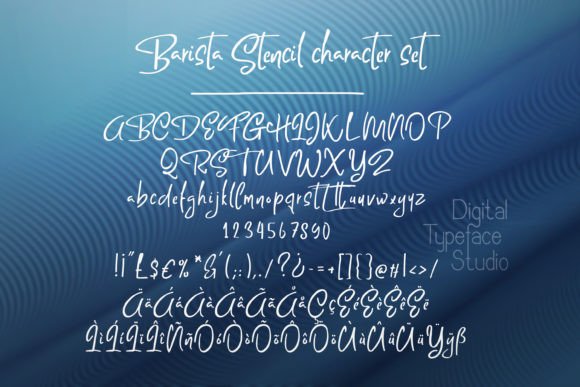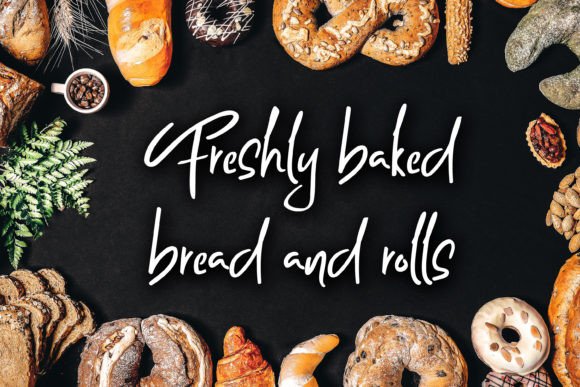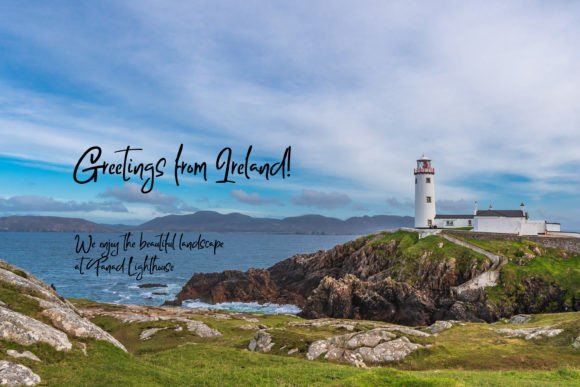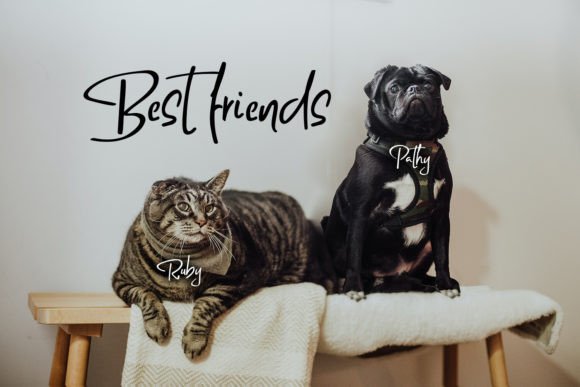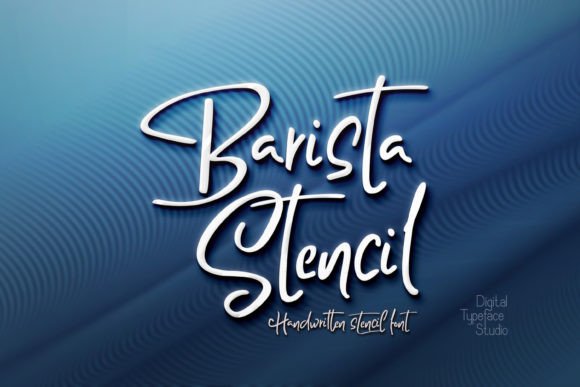
Introducing Barista Stencil Font: Elevate Your Designs with a Unique Handwritten Style
Are you a designer, crafter, or DIY enthusiast looking for a font that can add a personal touch to your projects? Look no further than Barista Stencil Font, a carefully crafted handwritten stencil font designed to help you create truly unique and original looking designs. In this article, we’ll explore the features and benefits of Barista Stencil Font, and how it can elevate your designs, whether you’re working on cutting projects, crafts, packaging, or more.
What is Barista Stencil Font?
Barista Stencil Font is a handwritten stencil font that has been carefully designed without closed loops on the characters. This distinctive feature allows you to create designs that are not only visually appealing but also versatile and adaptable to various projects. The font’s handwritten style gives it a personal and organic feel, making it perfect for designers and crafters who want to add a touch of warmth and personality to their work.
Key Features of Barista Stencil Font
- Handwritten style: Barista Stencil Font boasts a unique handwritten style that adds a personal touch to your designs.
- Stencil design: The font’s stencil design makes it perfect for cutting projects, crafts, and other applications where a stencil font is required.
- No closed loops: The absence of closed loops on the characters allows for greater flexibility and creativity in your designs.
- Versatile: Barista Stencil Font can be used for a wide range of projects, including crafts, packaging, signs, and more.
Benefits of Using Barista Stencil Font
So, why choose Barista Stencil Font for your next project? Here are just a few benefits of using this unique font:
- Unique designs: With Barista Stencil Font, you can create truly unique and original looking designs that stand out from the crowd.
- Ease of use: The font is easy to use and can be applied to a wide range of projects, from cutting and crafts to digital designs.
- Time-saving: The stencil design of the font saves you time and effort, as you can easily cut out letters and shapes without having to draw them from scratch.
- Professional results: Barista Stencil Font gives your designs a professional finish, making it perfect for crafters and designers who want to produce high-quality work.
Project Ideas Using Barista Stencil Font
Barista Stencil Font is a versatile font that can be used for a wide range of projects. Here are some ideas to get you started:
- Cutting projects: Use Barista Stencil Font to create custom signs, banners, and decorations for parties, events, and special occasions.
- Crafts: Add a personal touch to your crafts, such as handmade cards, gift tags, and scrapbooking pages.
- Packaging: Use Barista Stencil Font to create custom labels and packaging for your products, giving them a unique and professional look.
- DIY decor: Create custom wall art, stencils, and decorations for your home using Barista Stencil Font.
| Font Name | Barista Stencil Font |
| Author | Digital Typeface Studio |
In conclusion, Barista Stencil Font is a unique and versatile font that can elevate your designs and add a personal touch to your projects. With its handwritten style, stencil design, and absence of closed loops, this font is perfect for designers, crafters, and DIY enthusiasts who want to create truly unique and original looking designs. Whether you’re working on cutting projects, crafts, packaging, or more, Barista Stencil Font is a great choice for anyone looking to add a touch of personality and professionalism to their work.